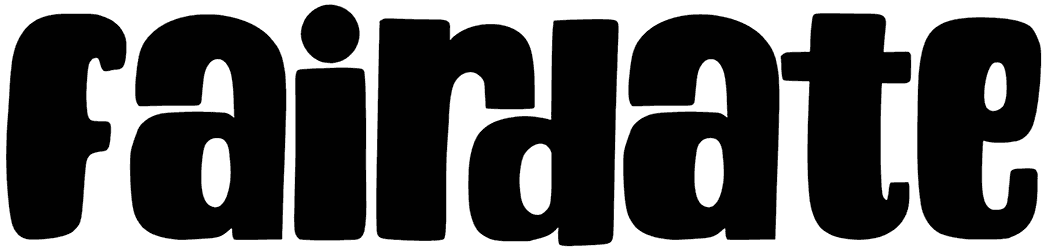
Fairdate Font
Look at the Fairdate font and enjoy its fun characteristics. This cartoon font grabs your attention at first glance and can help you in several situations, such as posters, animations, and cartoons.
The Fairdate font’s letters are bold with a curvy shape, sending a friendly vibe and creating a spectacular personality for this font. However, it does not support numbers and symbols. So download this playful font and make a unique experience for your audience.